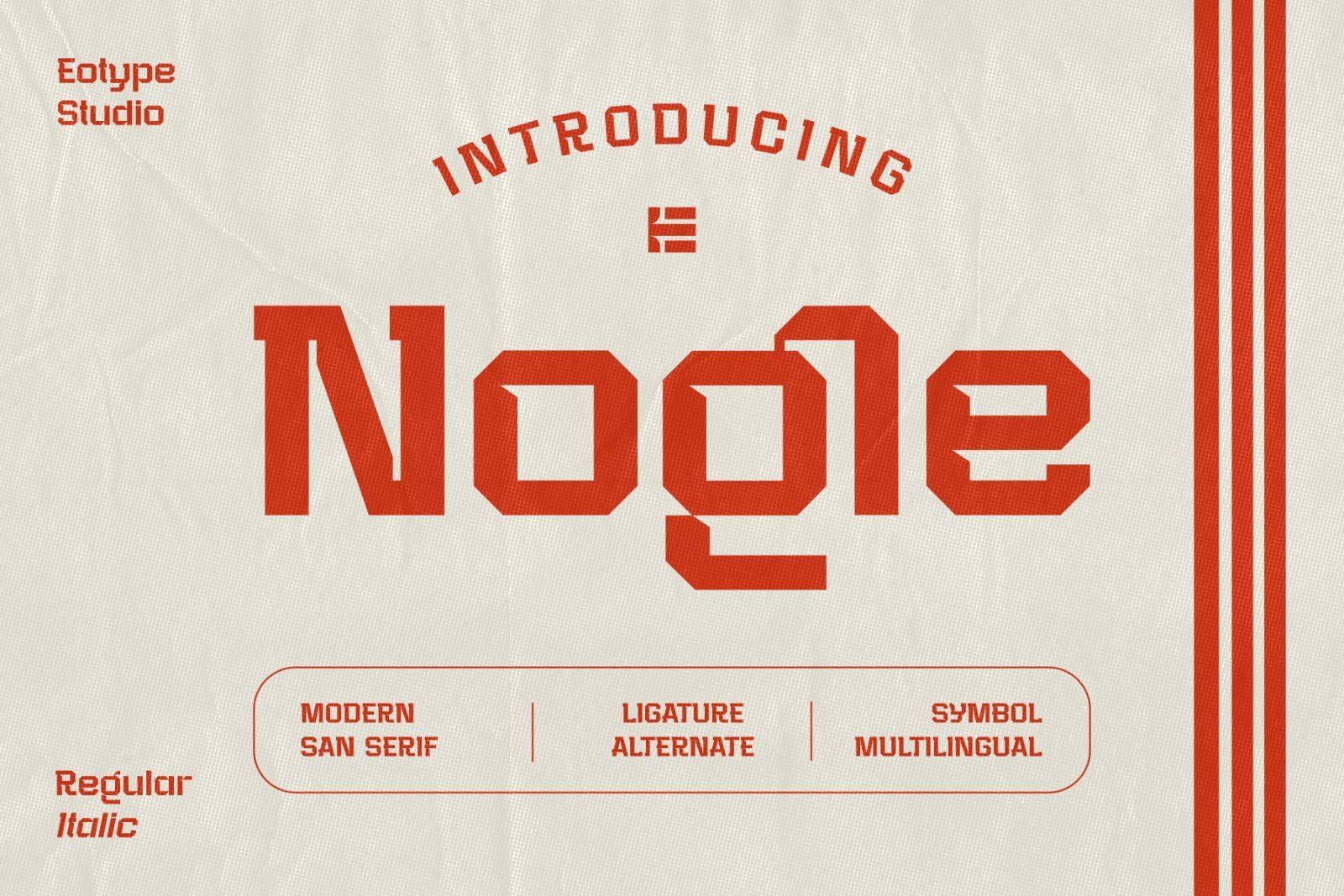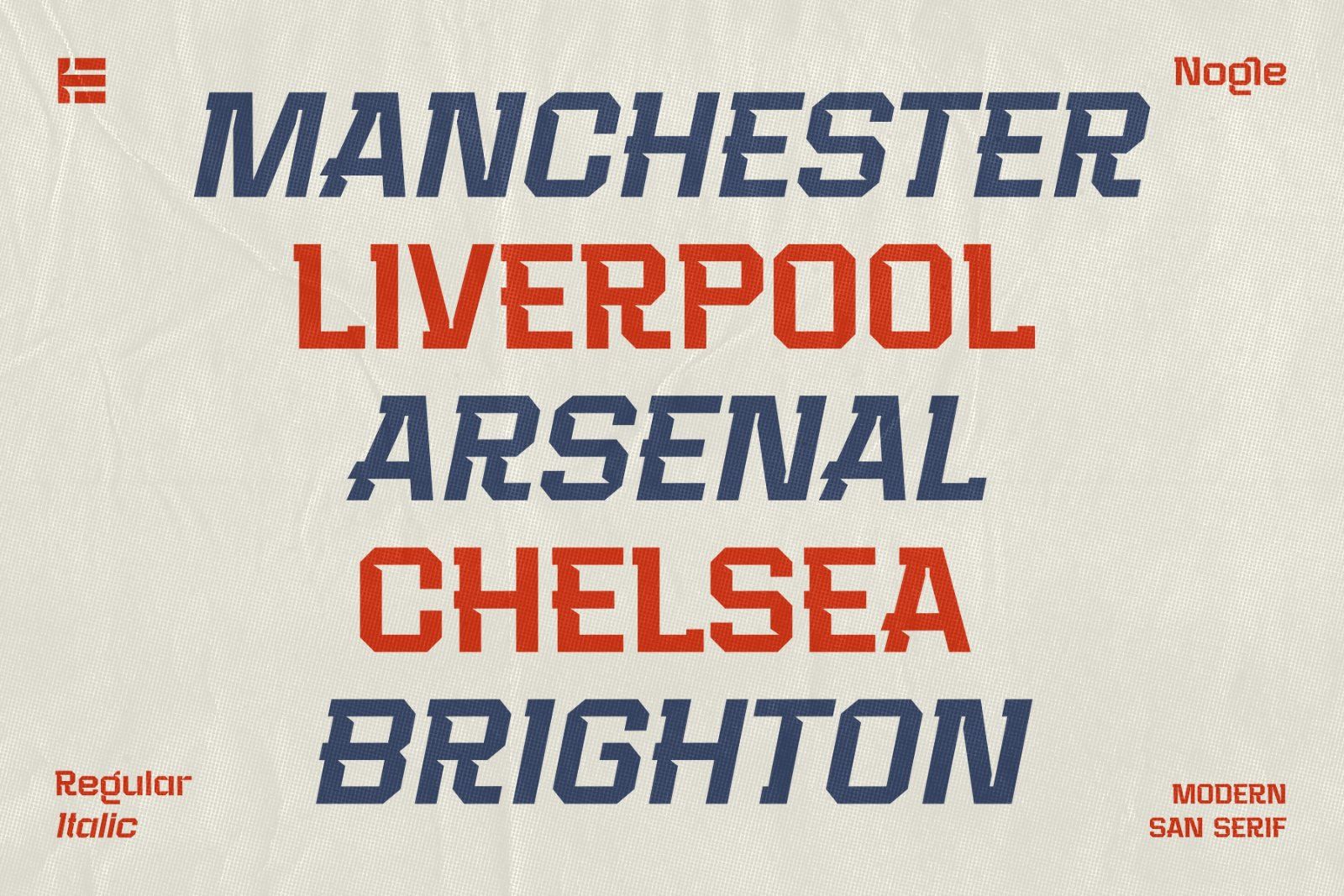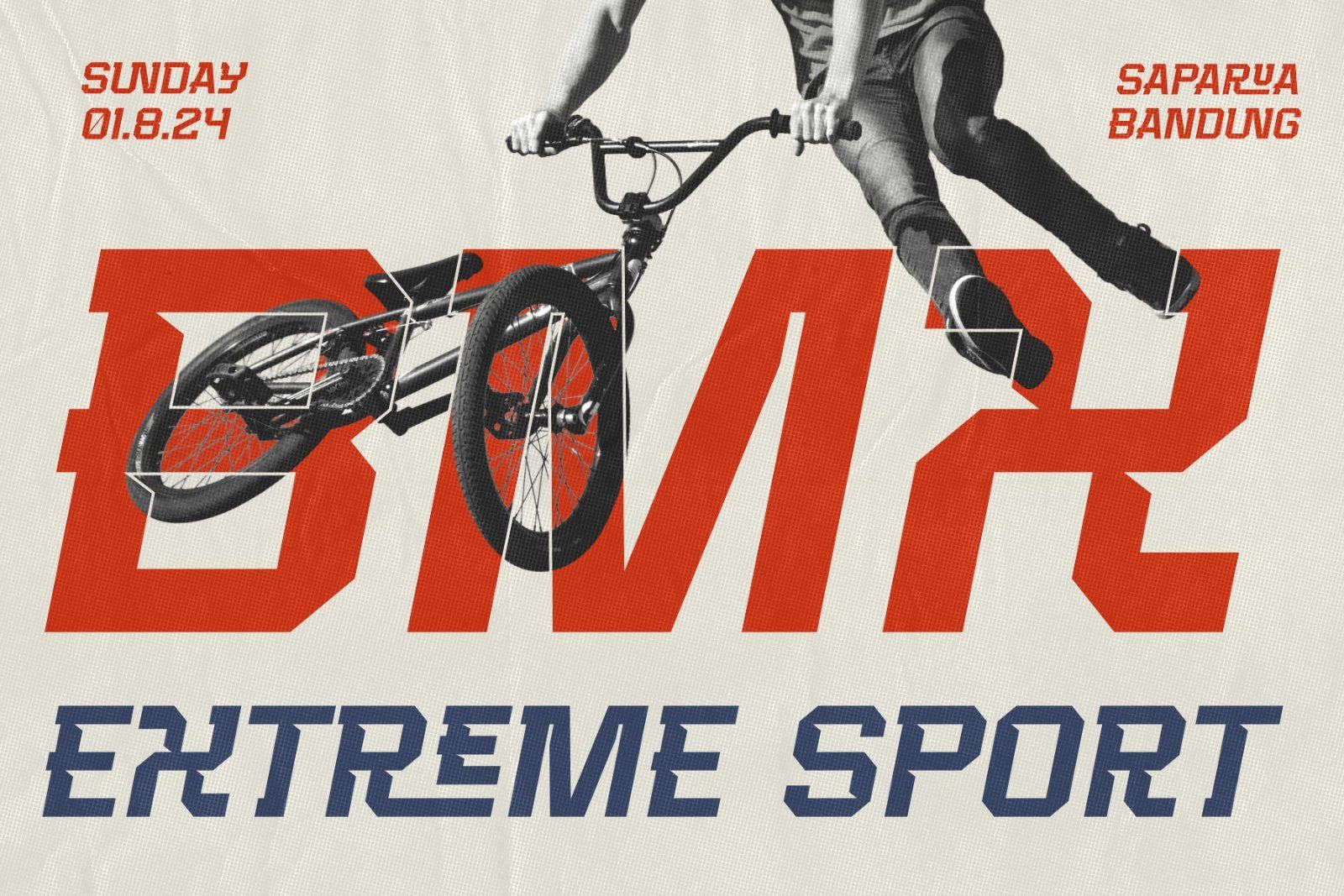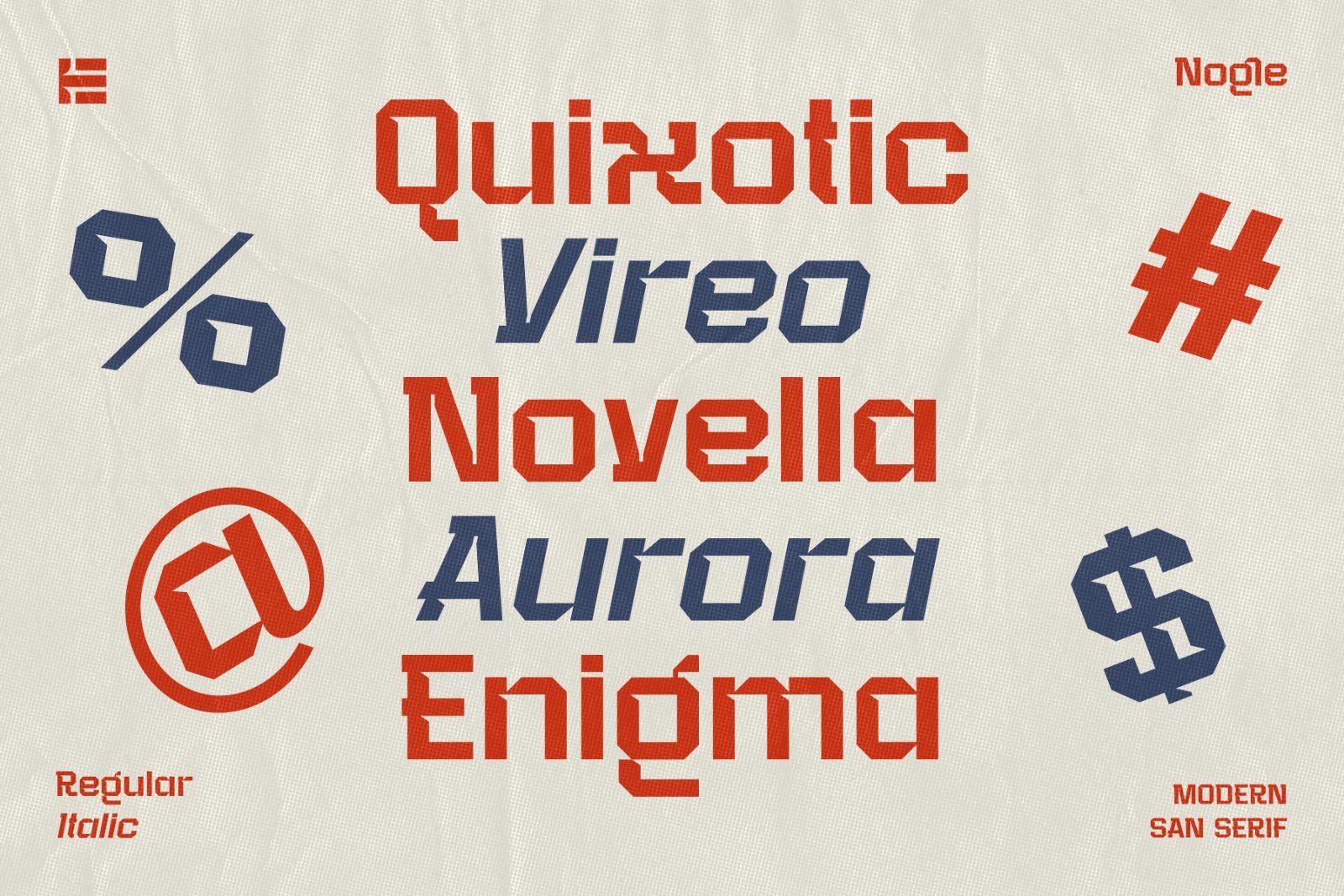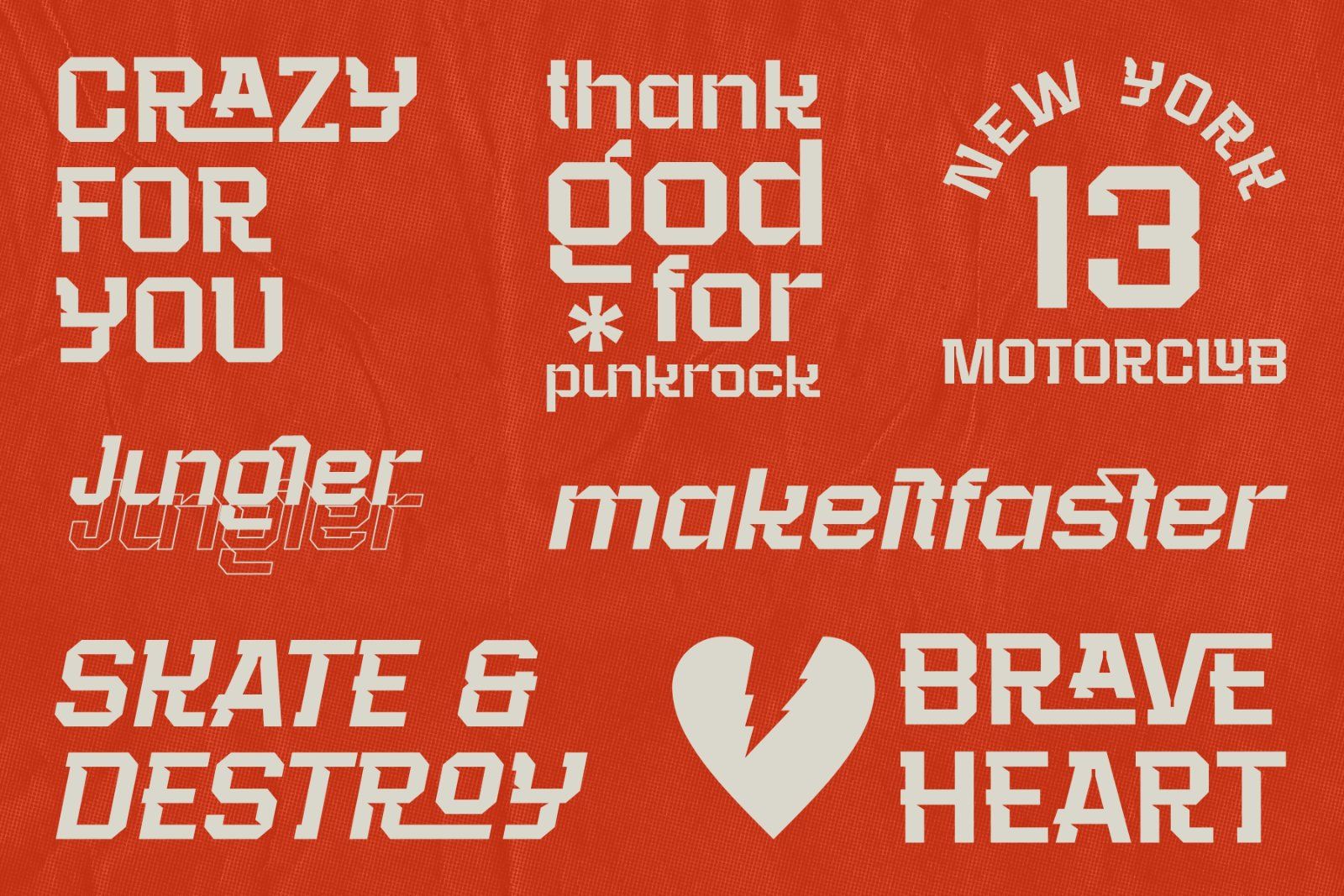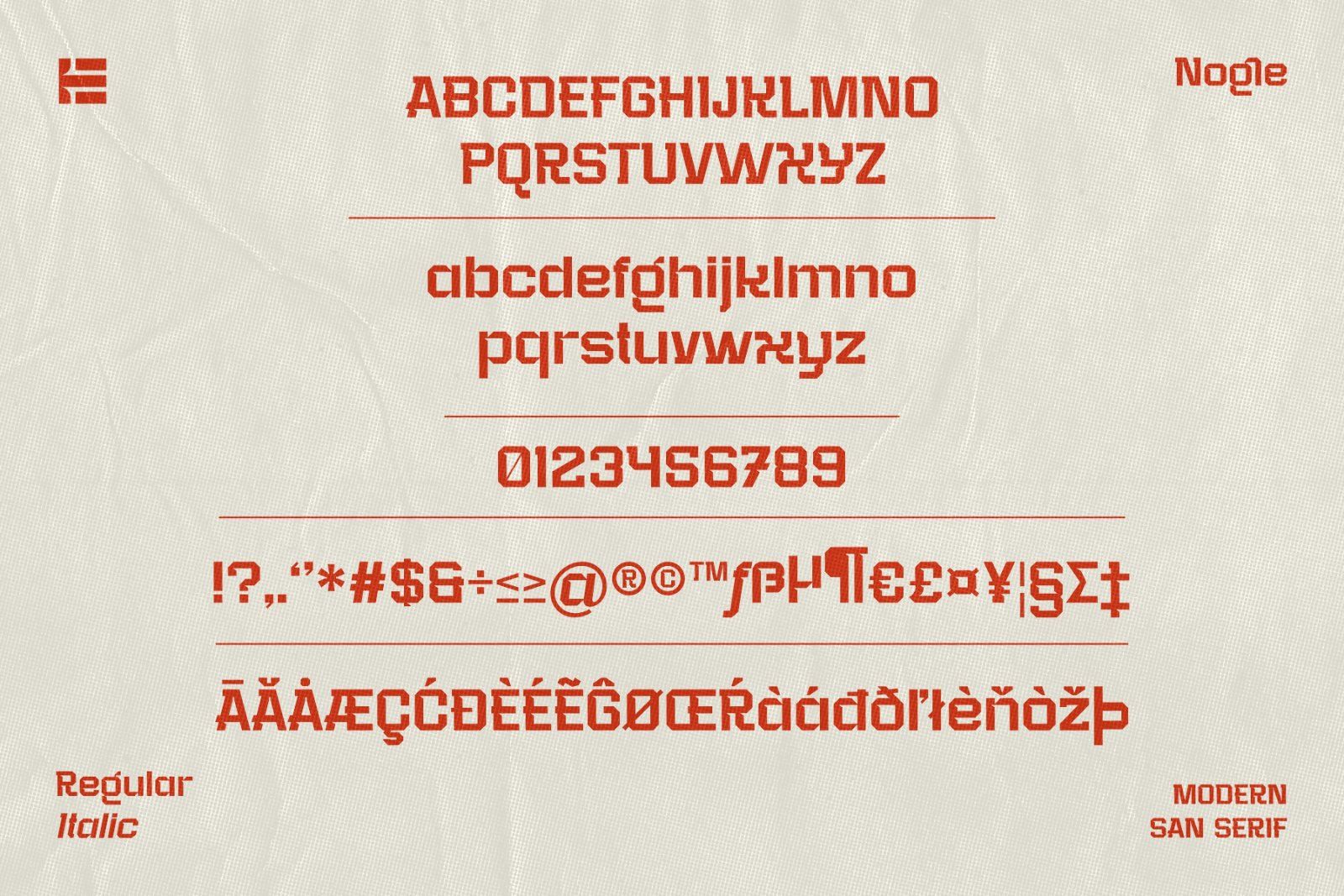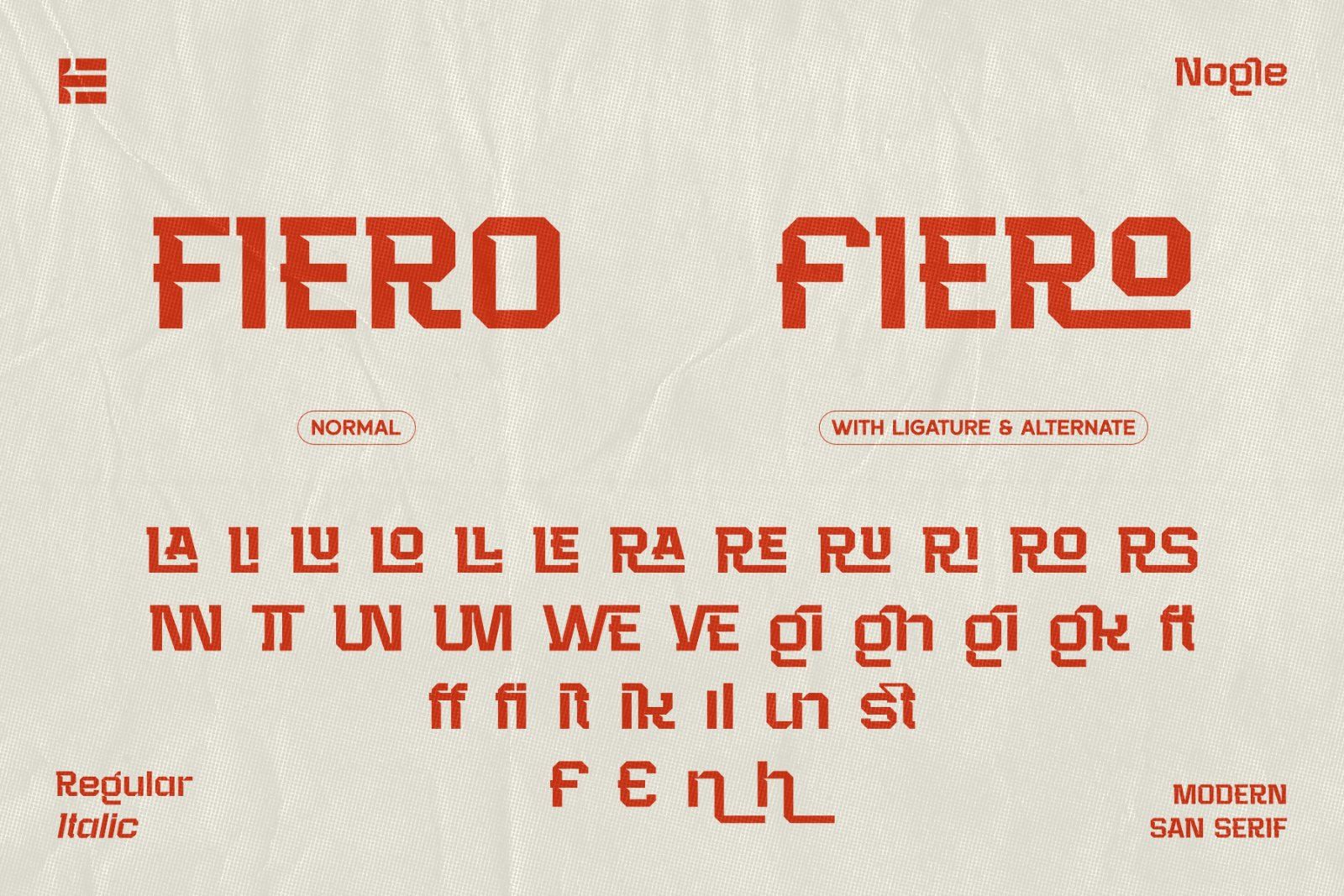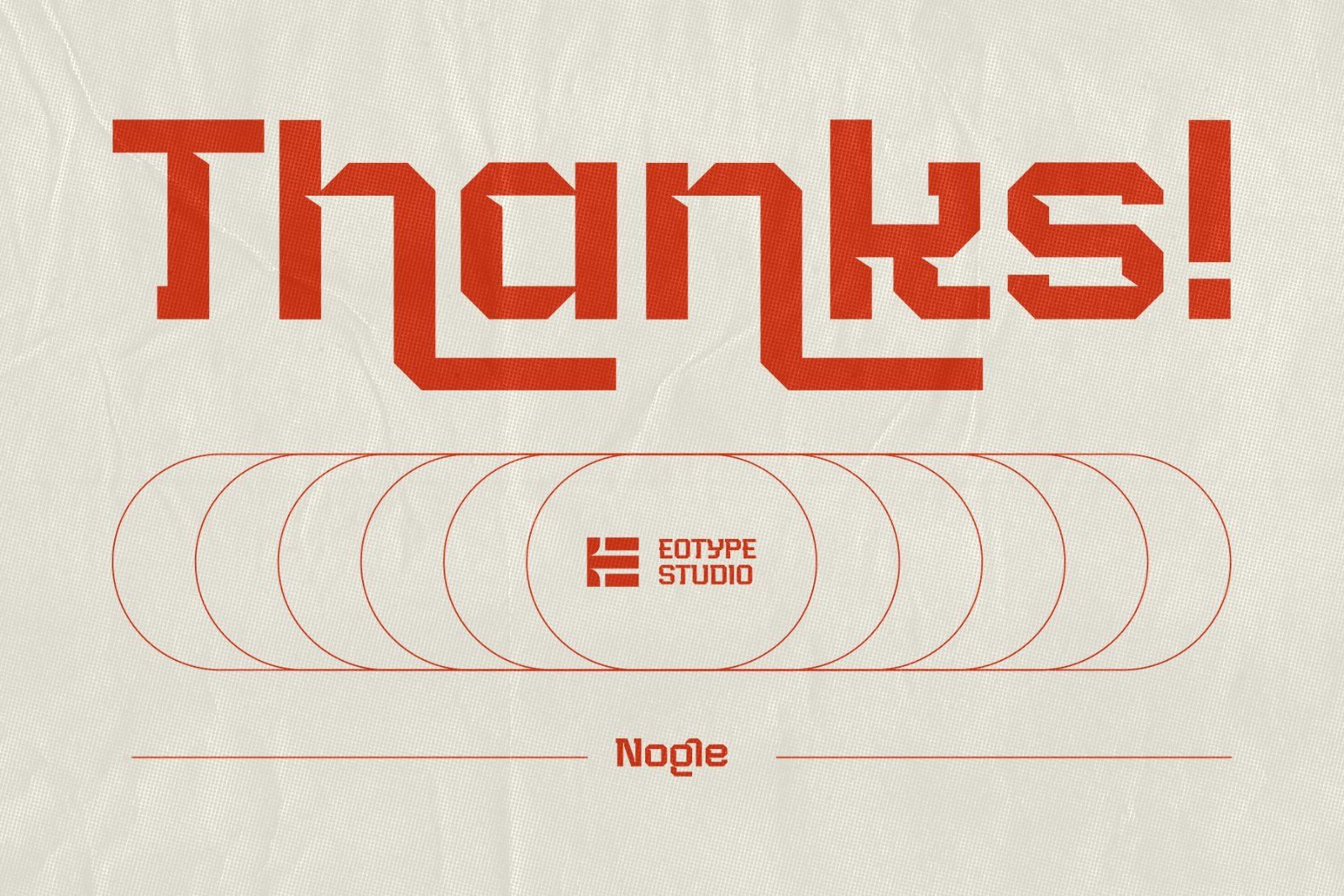
A Nogle sans-serif display font is a typeface that combines dynamic energy with bold, clean design, making it perfect for athletic brands, sportswear, and event promotions. These fonts often feature strong, angular lines, wide letterforms, and a solid, impactful presence that conveys strength and movement. The design typically includes sharp edges, slightly condensed shapes, and an overall sense of speed and action. Nogle sans-serif fonts may also incorporate subtle stylized elements, such as slanted angles or italicized forms, to enhance the sense of motion and competitiveness. They are ideal for creating a powerful, energetic, and modern look that resonates with active and youthful audiences.